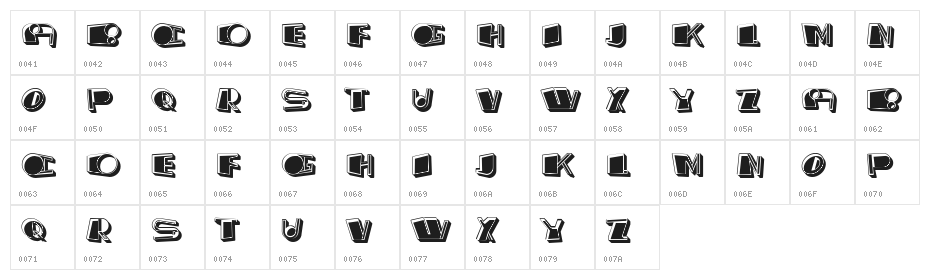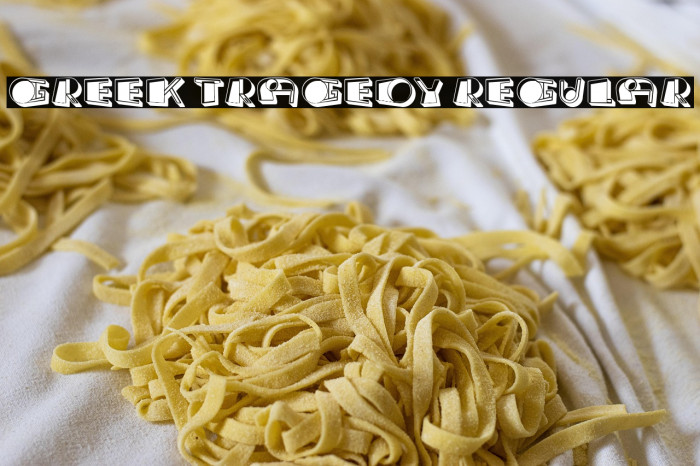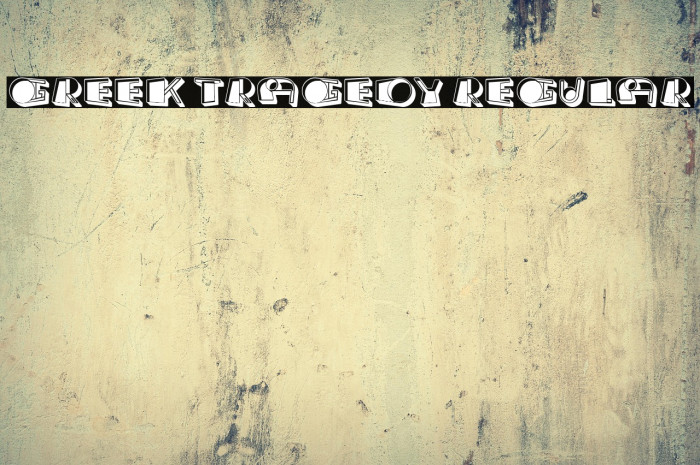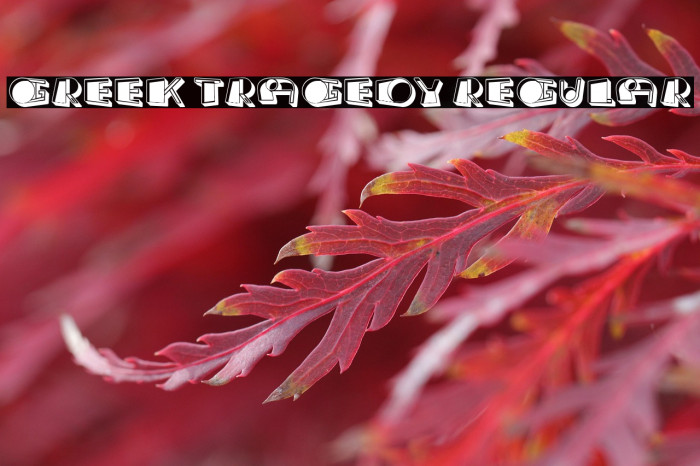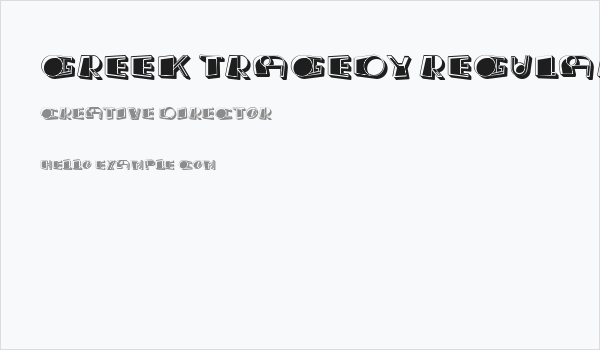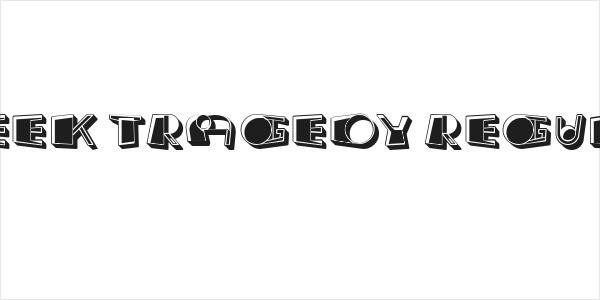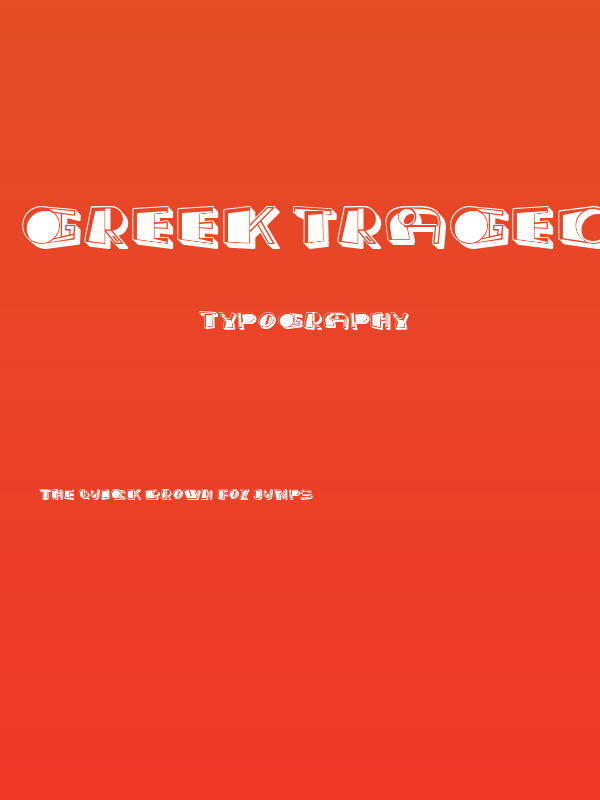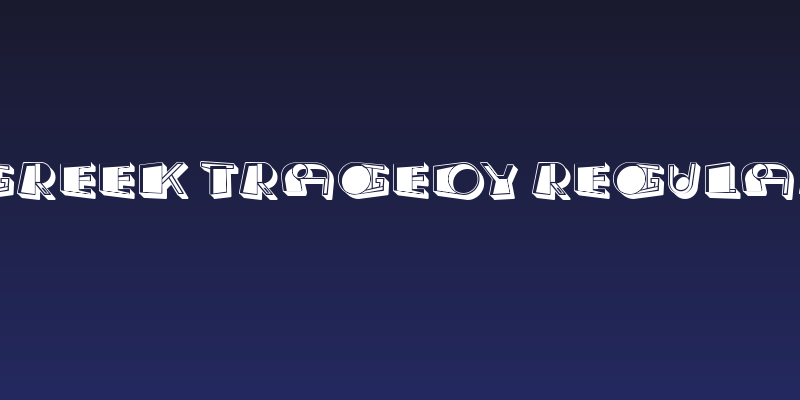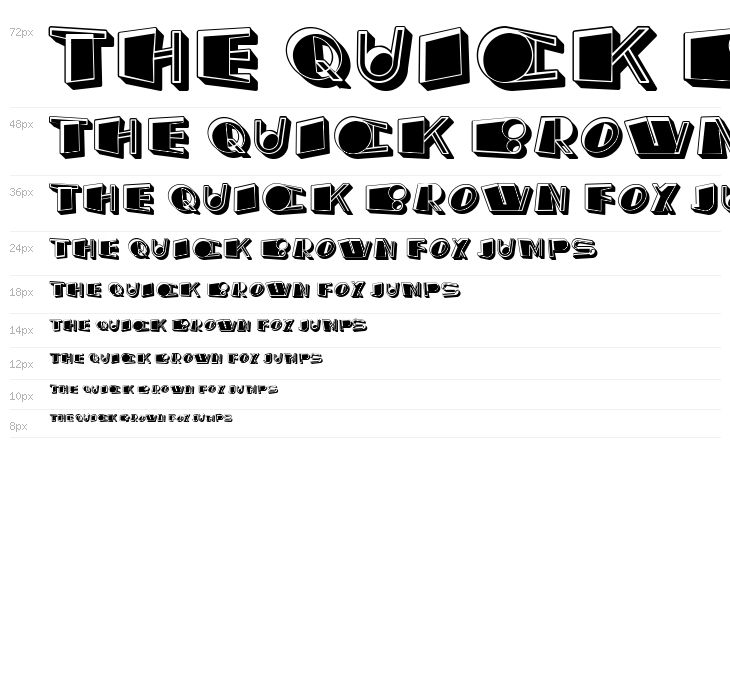
Greek Tragedy Regular Font
Greek Tragedy Regular Description
This font features a bold and dramatic style with a three-dimensional effect that gives each letter a shadowed appearance. The characters are uppercase only, with a unique blend of geometric shapes and sharp angles, creating a striking visual impact. The design is reminiscent of classical Greek architecture, with a modern twist that adds depth and intrigue. The letters are well-spaced, allowing for clear readability despite the complex design. This font is ideal for projects that require a bold statement, combining historical elements with contemporary flair.
| Proposed Projects | Ideal for theatrical posters, book covers, or any design needing a bold, dramatic flair. |